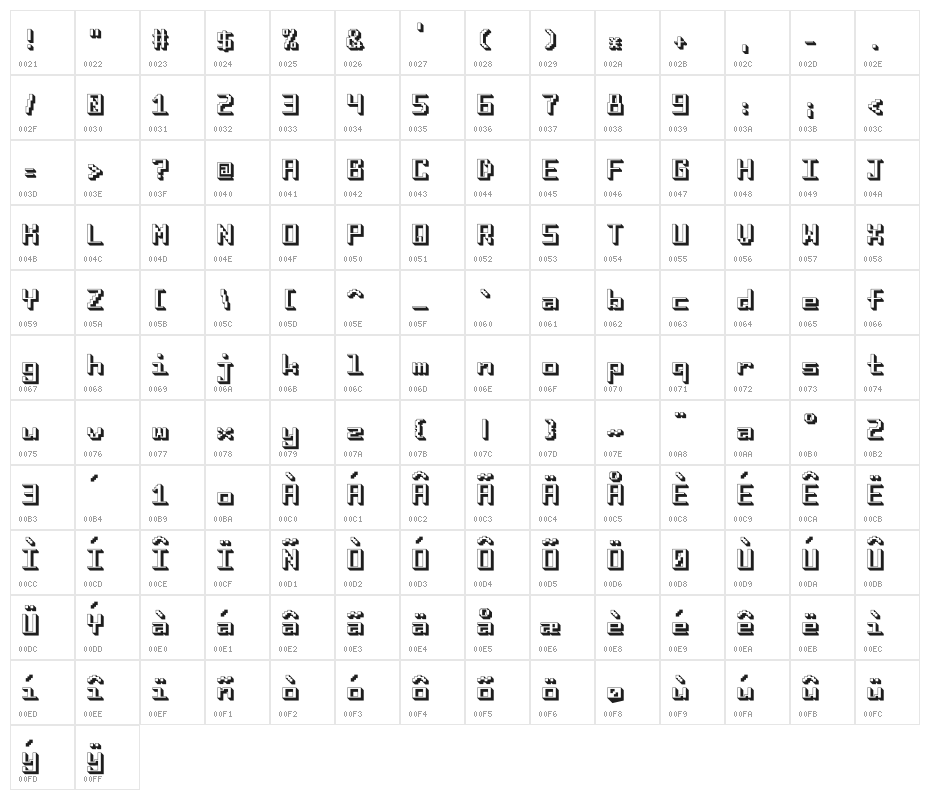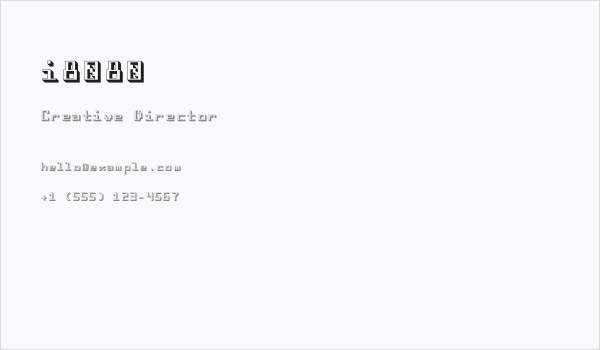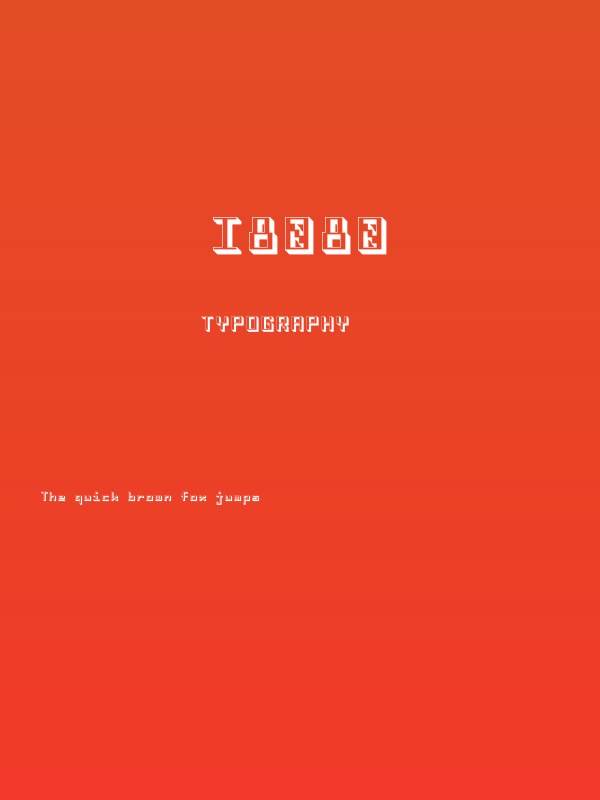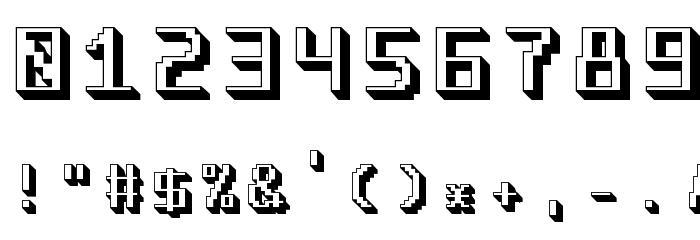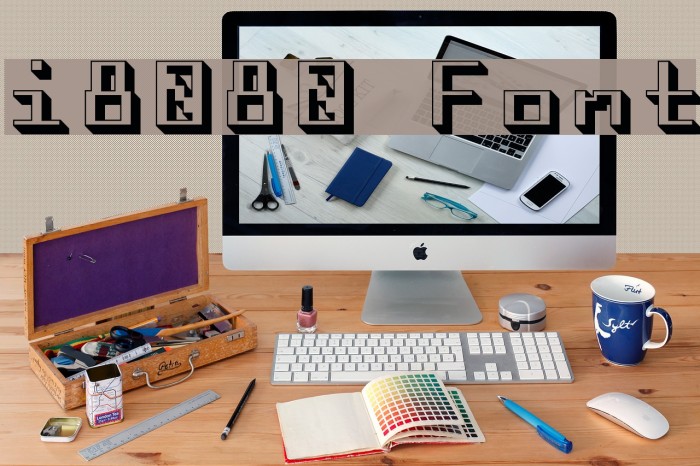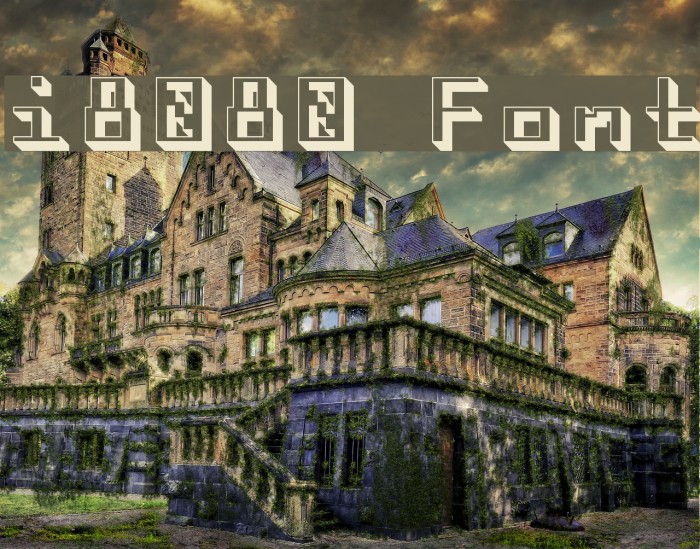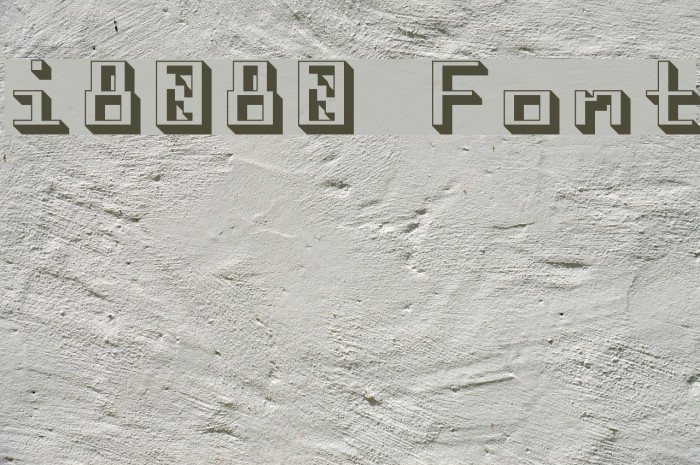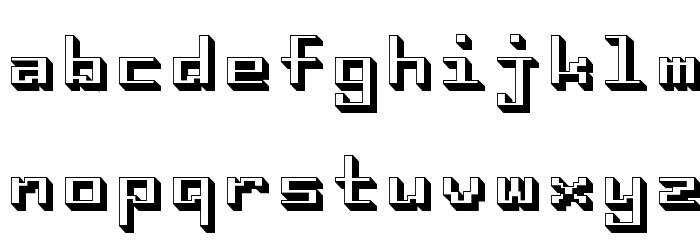
i8080 Font
i8080 Description
This font features a bold, three-dimensional block style with a distinct shadow effect, giving it a retro, arcade-like appearance. The characters are uniformly structured with sharp edges and consistent proportions, creating a cohesive and visually striking look. The uppercase and lowercase letters maintain a geometric form, while the numerals and special characters follow the same design principles, ensuring uniformity across all glyphs. The font's unique shadowing adds depth, making it ideal for eye-catching designs.
| Overall Style | Retro, Decorative |
| Proposed Projects | Ideal for video game graphics, retro-themed posters, digital art, and branding that requires a nostalgic or playful touch. |